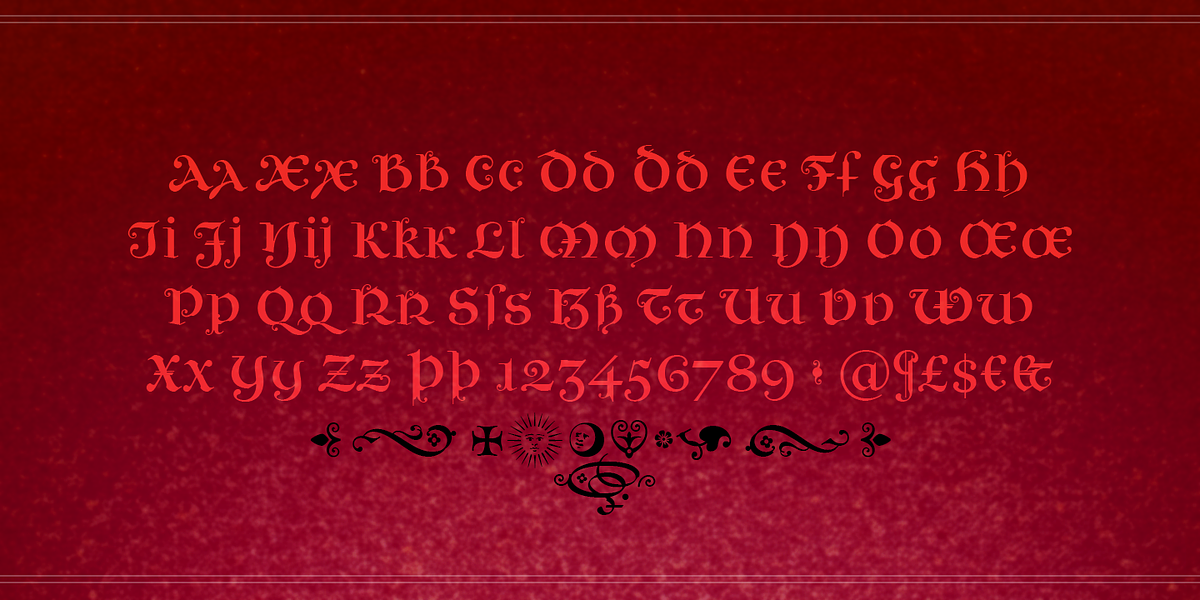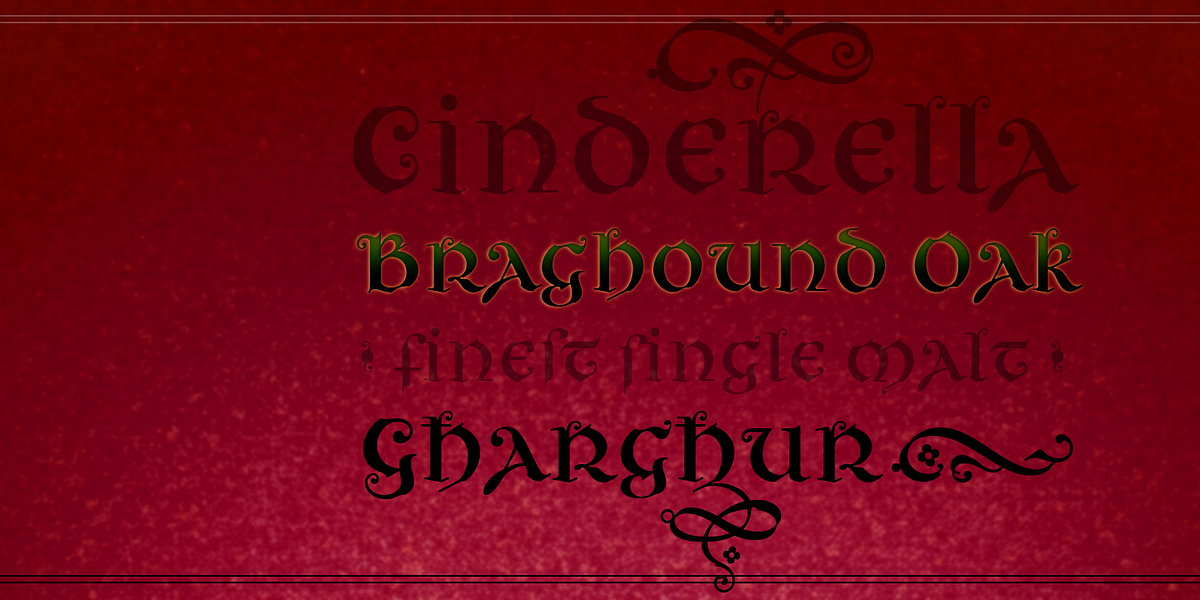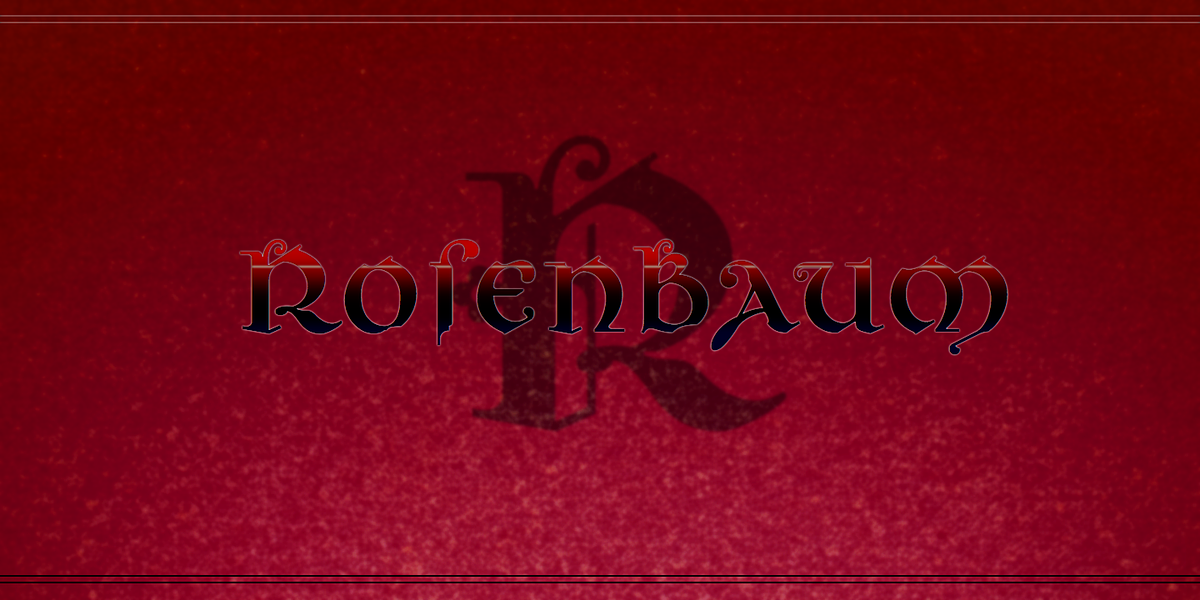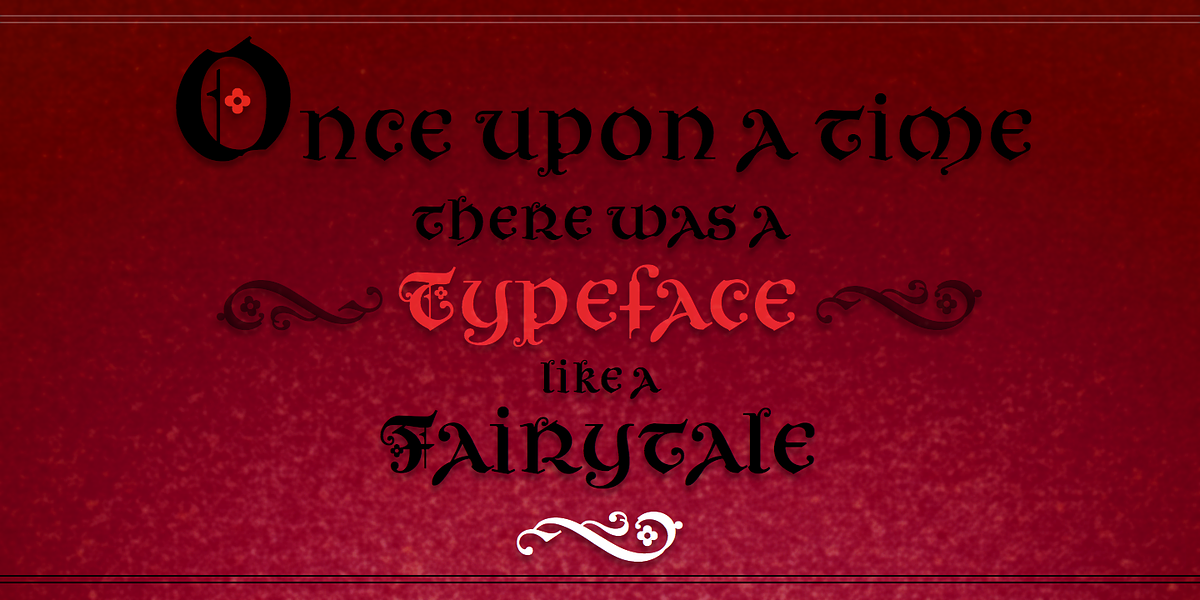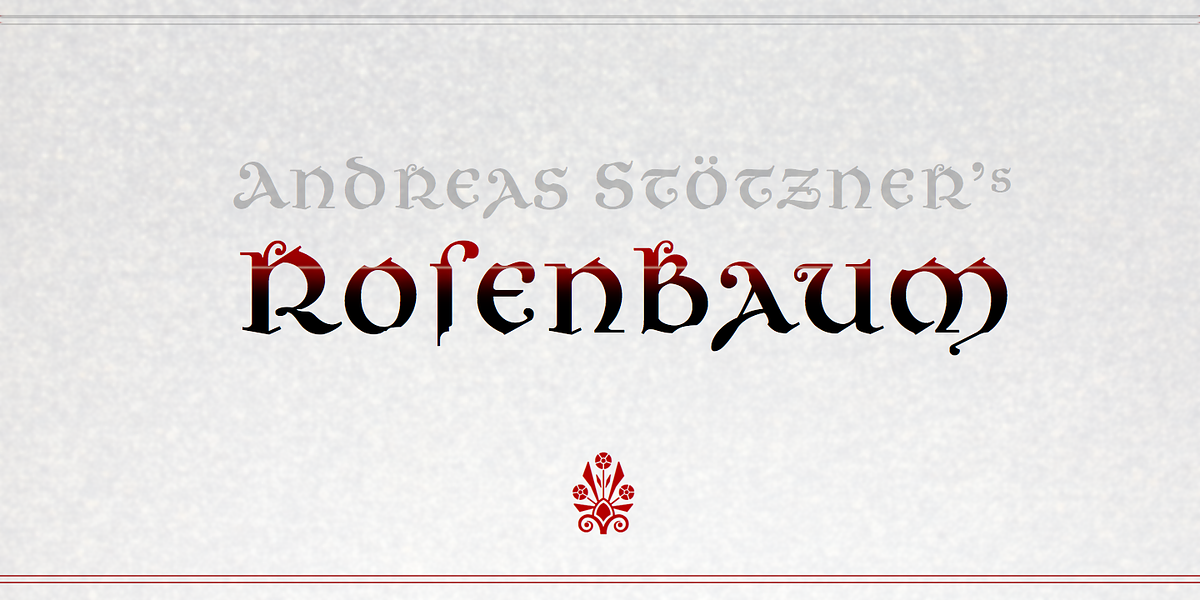
Rosenbaum
Rosenbaum is a calligraphic serif typeface that draws inspiration from historical styles like blackletter and uncial scripts. Its unique blend of didone contrast, uncial letterforms, and blackletter flourishes creates a distinct visual identity. The font evokes a sense of fairytale magic and romance, making it suitable for projects like fairytale books, invitations, headings, labels, and menu cards. Rosenbaum also includes a range of ornaments and calligraphic embellishments that can be combined with letters for added detail.